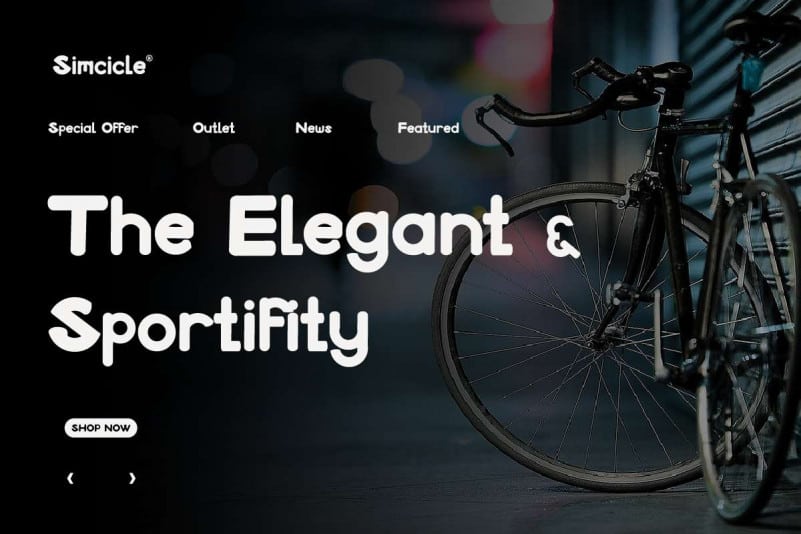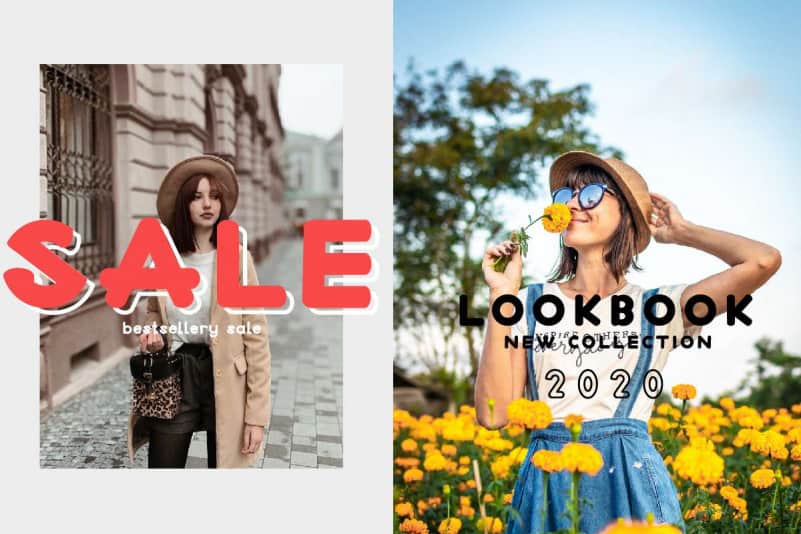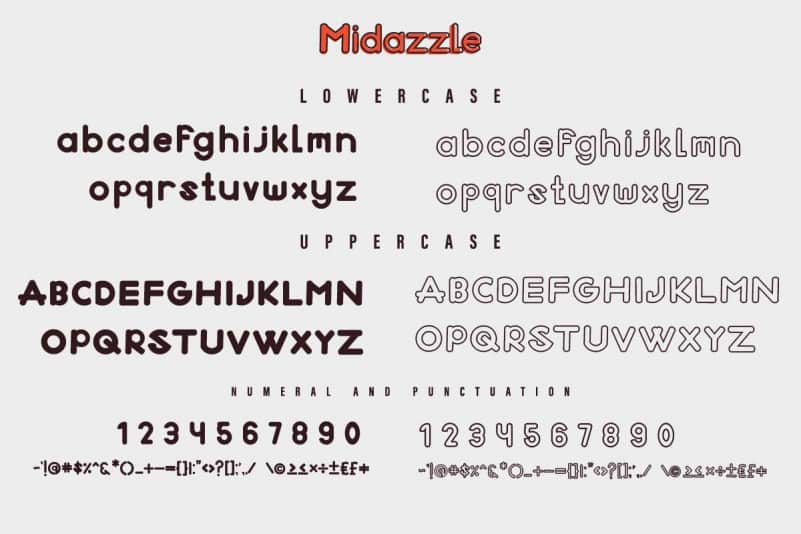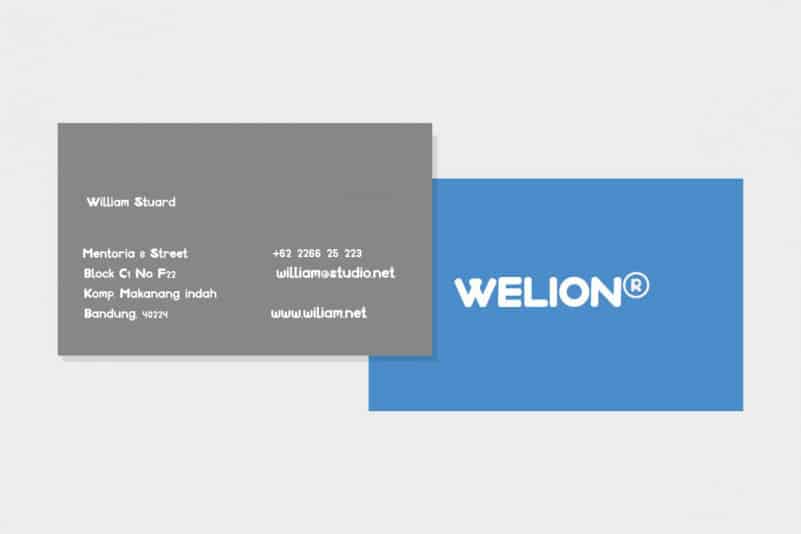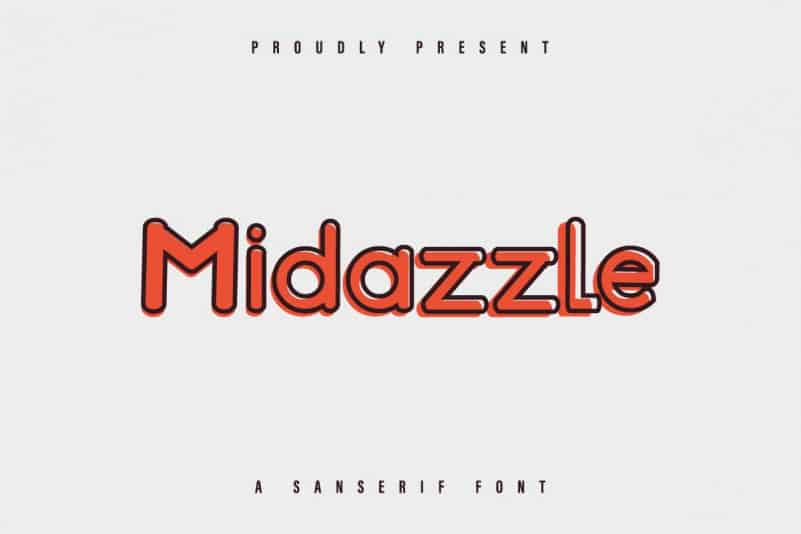
Midazzle Sans Serif Font
Midazzle Sans Serif Font is an exclusive sans serif display typeface with unique modern style. This font has a stunning characters set, perfectly managed with well spaced and kerning. The theme style of this font will be modern, futuristic, stylish, sophisticated and elegant style.
Midazzle Sans Serif Font will be great for any projects including : branding, logo, stationery, business card, signage, flyer, brochure etc. Almost all industries will be match for this typeface: startup, events, real estate, technology, agency, gaming, movie, etc